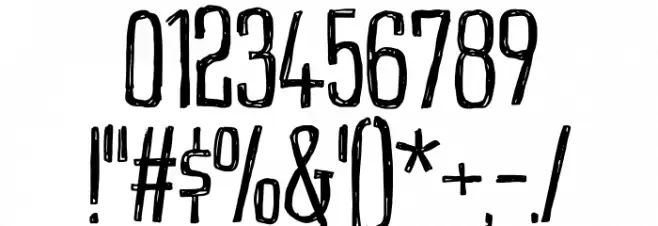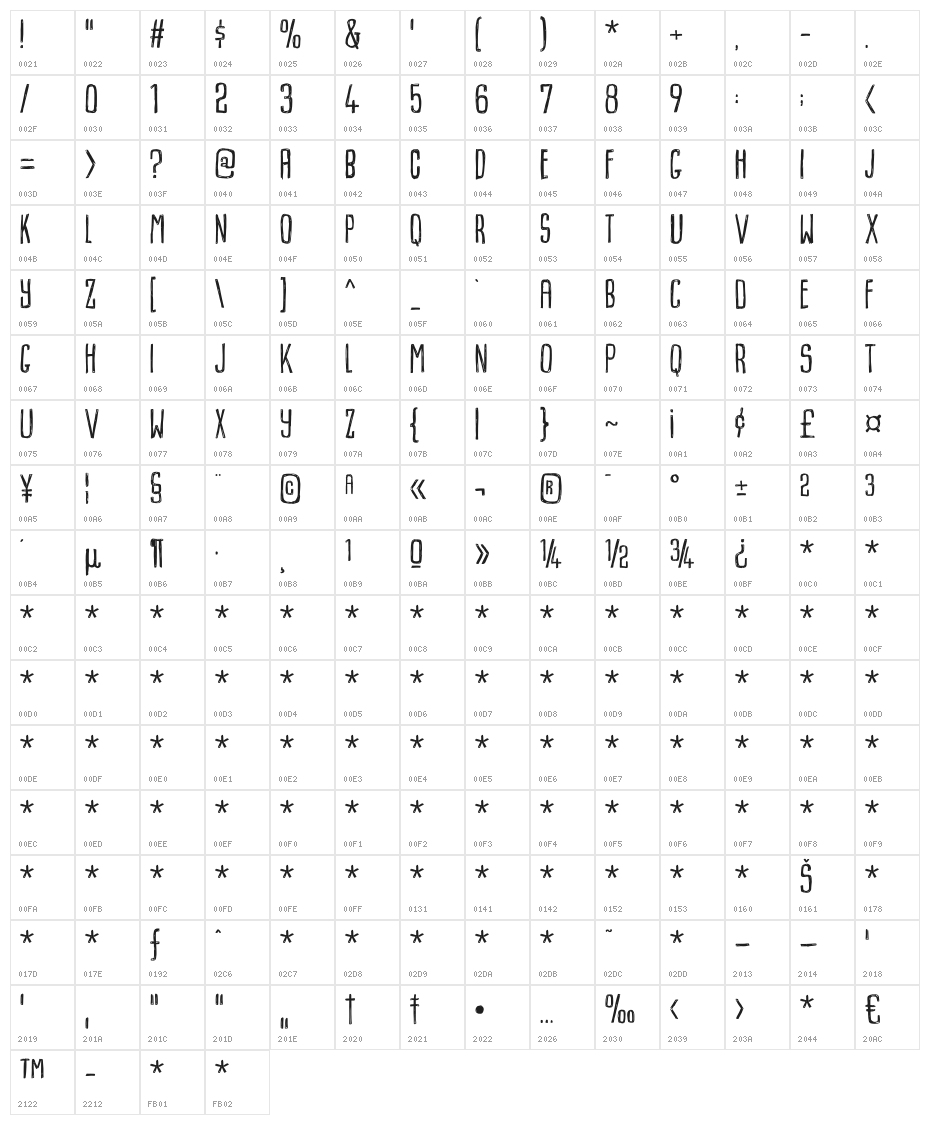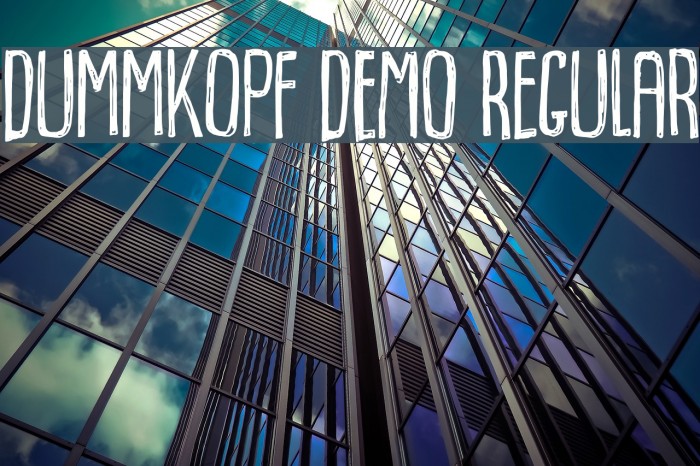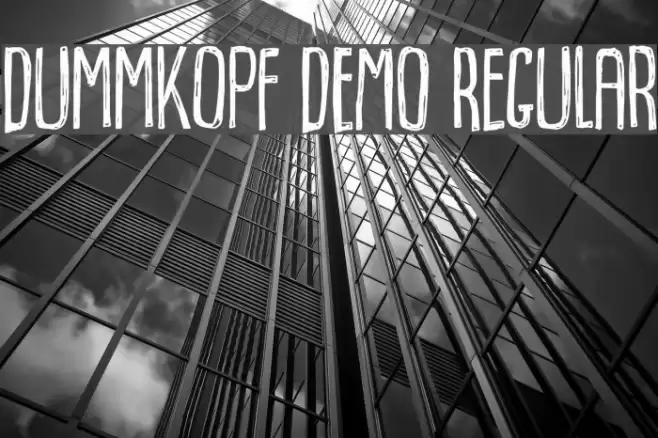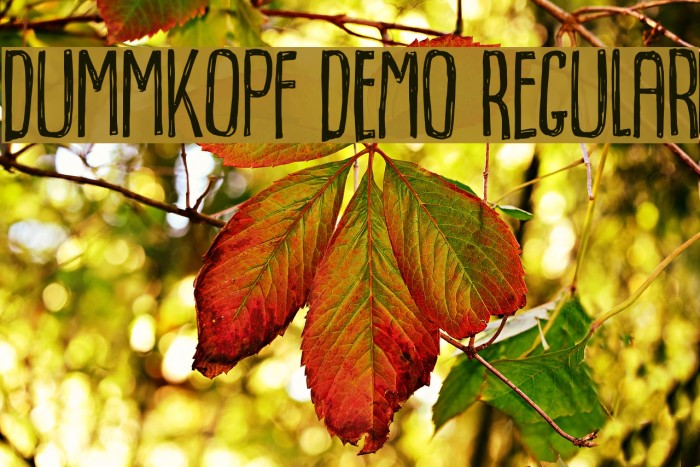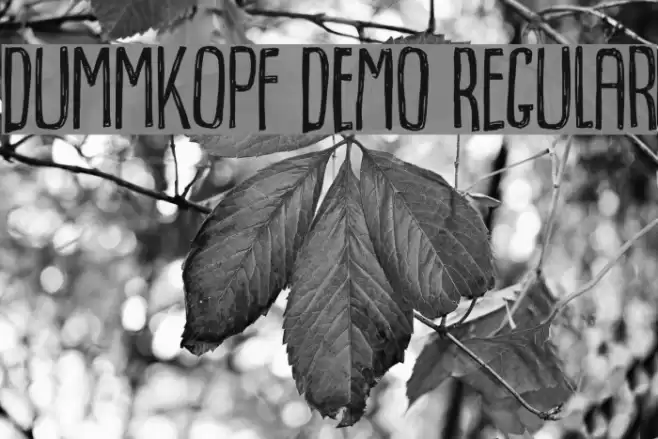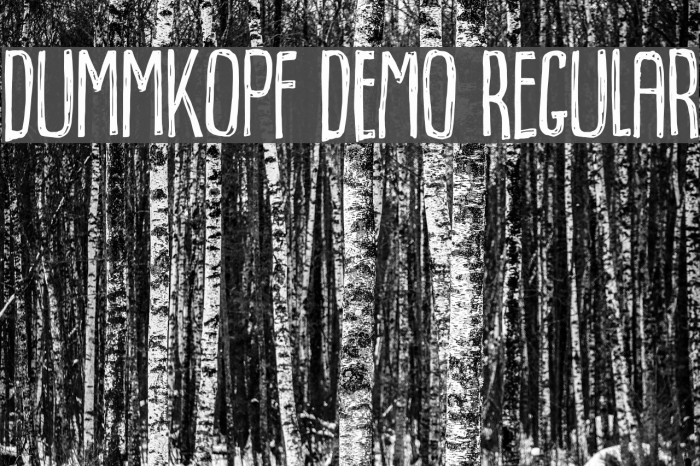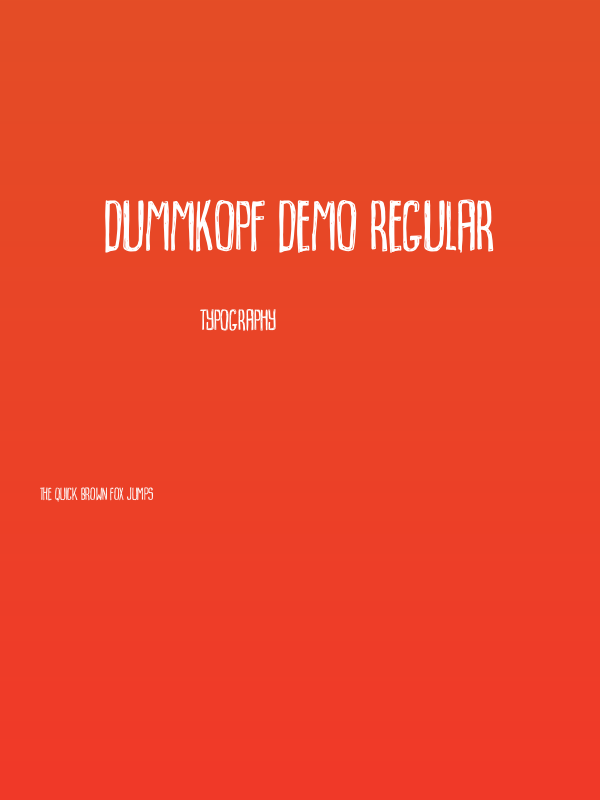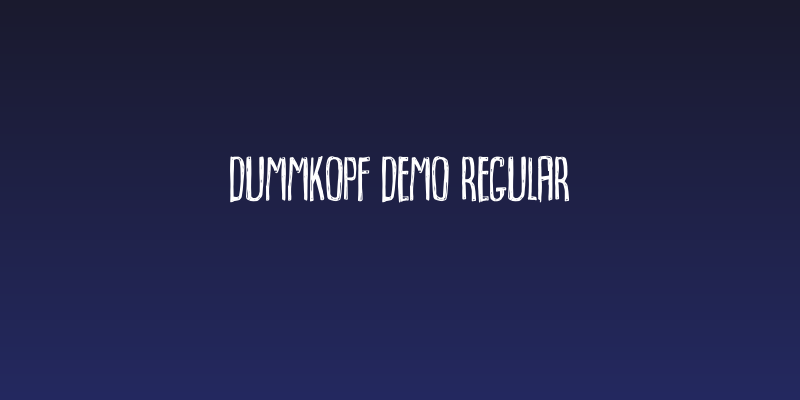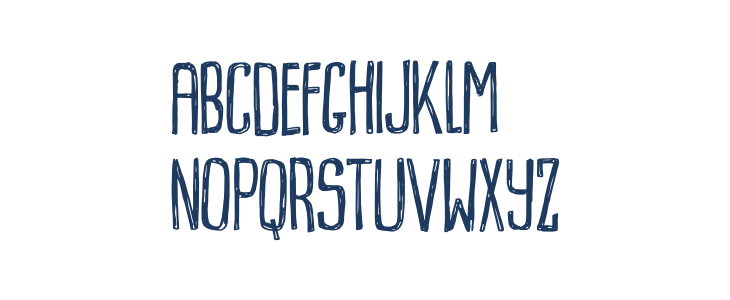
Dummkopf DEMO Regular Font
Dummkopf DEMO Regular Description
This font features a hand-drawn, sketch-like appearance with irregular strokes and a playful, artistic vibe. The characters are tall and narrow, with a slightly rough texture that gives them a unique, handcrafted feel. The uppercase and lowercase letters maintain a consistent style, while the numbers and special characters complement the overall aesthetic. This font's distinctive look makes it ideal for projects that require a creative and informal touch.
Use CaseLogos, Posters, Artistic Branding
Proposed ProjectsIdeal for creative projects such as posters, greeting cards, and artistic branding materials.